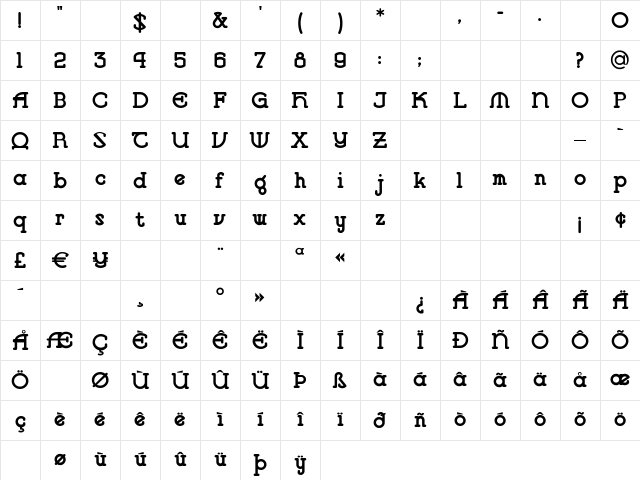
VlaanderenRound Regular
VlaanderenRound Family
Design Context for VlaanderenRound
VlaanderenRound softens its letterforms with rounded terminals, giving it an approachable, friendly quality that works well in consumer-facing and digital contexts.
Font Pairing: Pairs well with a rounded or humanist sans for body copy, maintaining the friendly tone without relying on VlaanderenRound to carry extended reading.
Pro Tip: Use VlaanderenRound for UI elements, app interfaces, and anywhere a friendly, approachable tone needs to be maintained without sacrificing clarity.